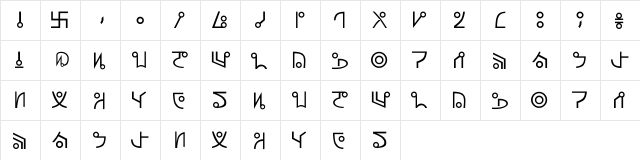
Unitolog Regular
Design Context for Unitolog Typeface
Unitolog offers clean, dependable letterforms without strong stylistic allegiance, making it a practical choice for designers who need flexibility.
Pro Tip: Pair Unitolog with a font of contrasting weight or personality to build a more expressive typographic hierarchy.